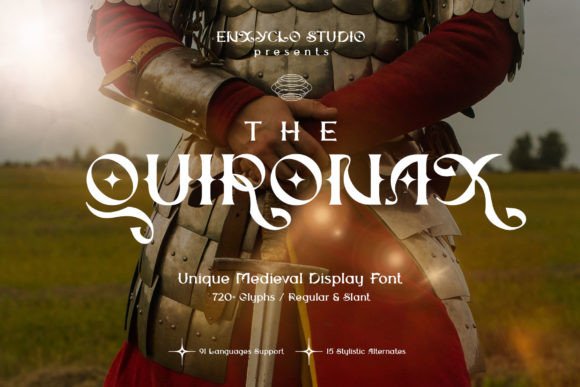
Unleash the Timeless Charm of The Quironax: A Font That Embraces Vintage Grandeur
Journey back to an era of elegance and sophistication with The Quironax Font, a vintage-styled display font meticulously crafted by Enxyclo. This highly detailed medieval font captivates with its intricate flourishes and timeless appeal, making it the perfect choice for branding projects that demand distinction and authenticity.
With The Quironax, your designs will exude an air of captivating nostalgia, evoking the allure of bygone eras. Its versatility knows no bounds, lending itself effortlessly to logos, t-shirt designs, sport graphics, and a myriad of other creative endeavors. Let your imagination run wild as you explore the endless possibilities, knowing that The Quironax will elevate your projects to new heights of visual splendor.
Dive into a world of captivating glyphs and swashes, easily accessible through PUA encoding, ensuring seamless integration into your design workflow. Unleash your creativity and let The Quironax transport you to a realm of artistic expression where boundaries dissolve and masterpieces are born.